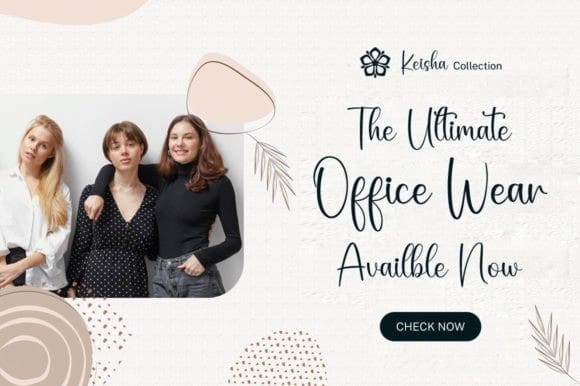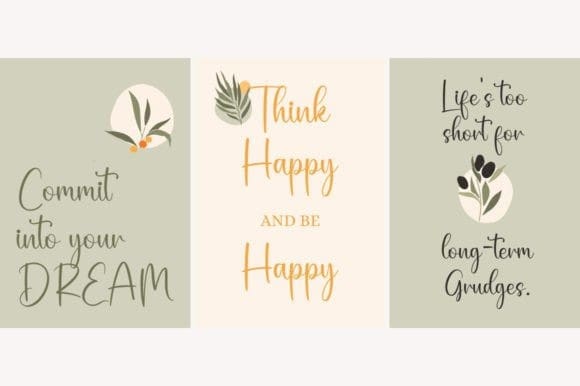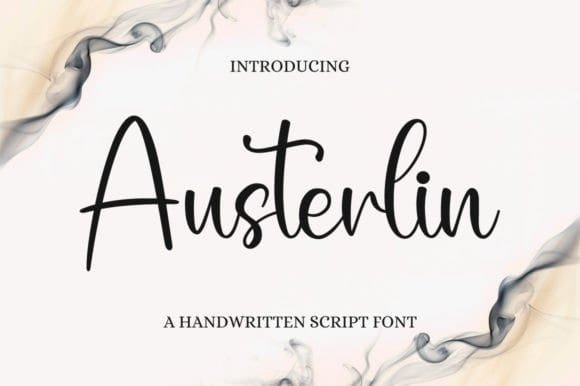
Austerlin Script Font
Austerlin Script Font, is a lovely and timeless handwritten font. It is the best choice for creating eye-catching logos, branding, and quotes.